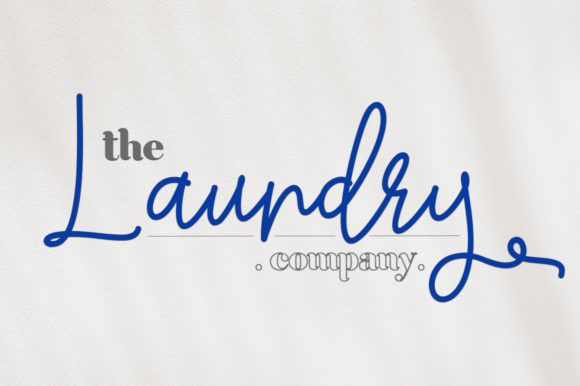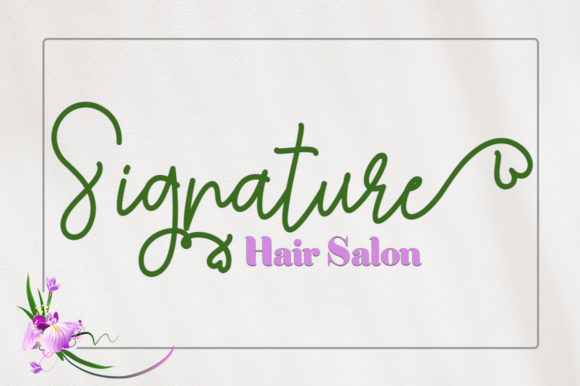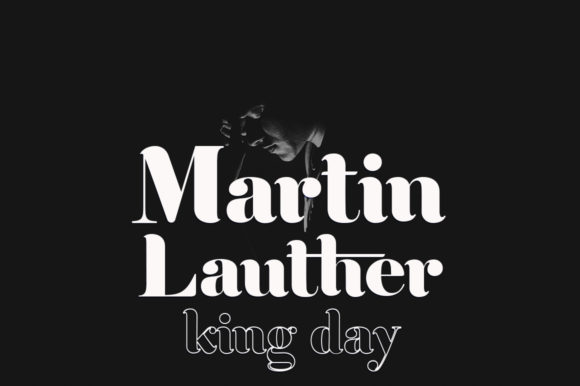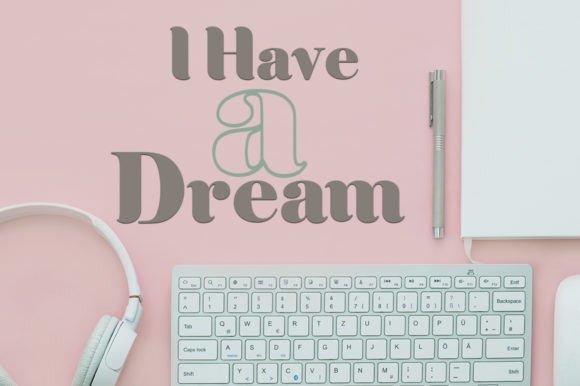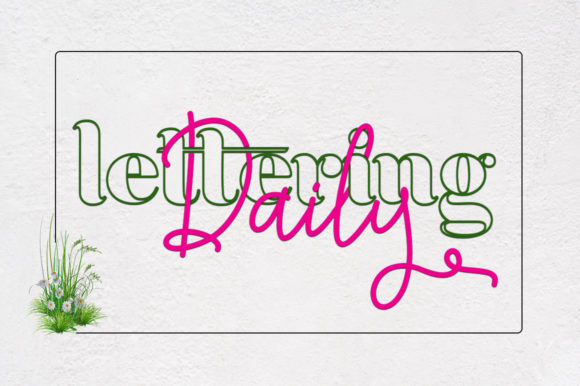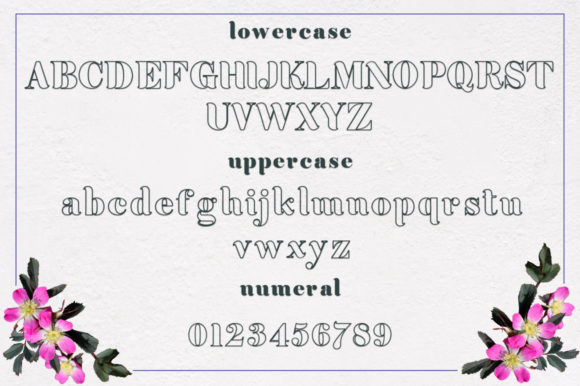
Introduction to Achiela Family Font
Achiela is a stunning font family with a bold and unique touch.
Its versatile fonts will turn any design project into a true stand out .
Key Features of Achiela Family Font
Why Choose Achiela Family Font?